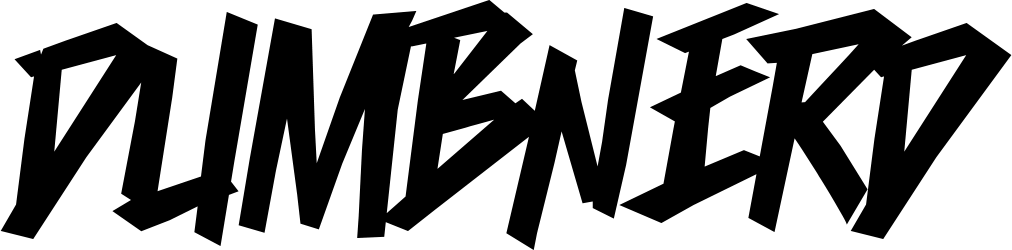
Dumbnerd Font
Dumbnerd is here to assist you when you want to create a unique sense of street art in your projects, such as cartoons, comic books, print T-shirts, and more. This ninja font comes with sharp, bold, and rough characters…
Dumbnerd is here to assist you when you want to create a unique sense of street art in your projects, such as cartoons, comic books, print T-shirts, and more.
This ninja font comes with sharp, bold, and rough characters that look casual and perky. It comes without the lowercase and numerals, yet it doesn’t make it any less of a terrific font of its kind, given its superb features!